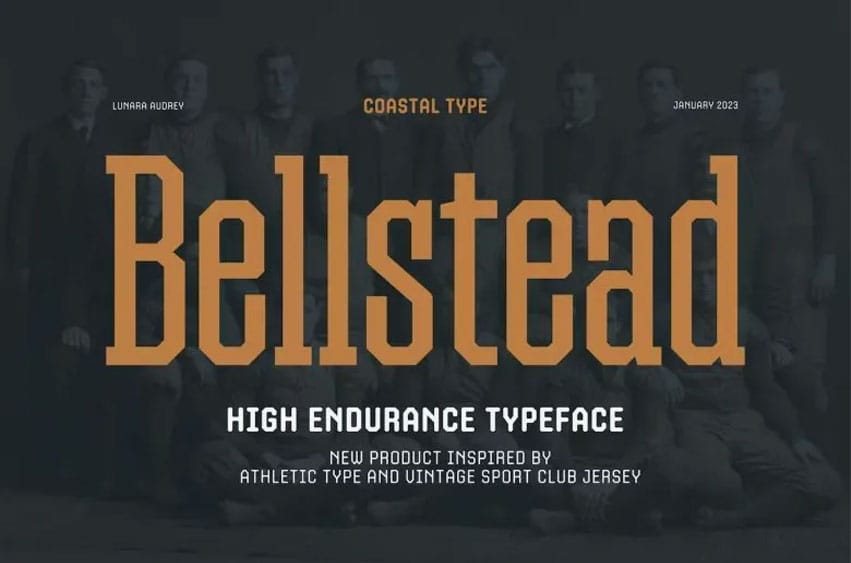
Bellstead Font could be described as an old-school-style athletic display font.
Ideal as a display font for schools and sports teams, poster work or quotations headlines acronyms and headings, Bellstead is a perfect font family.